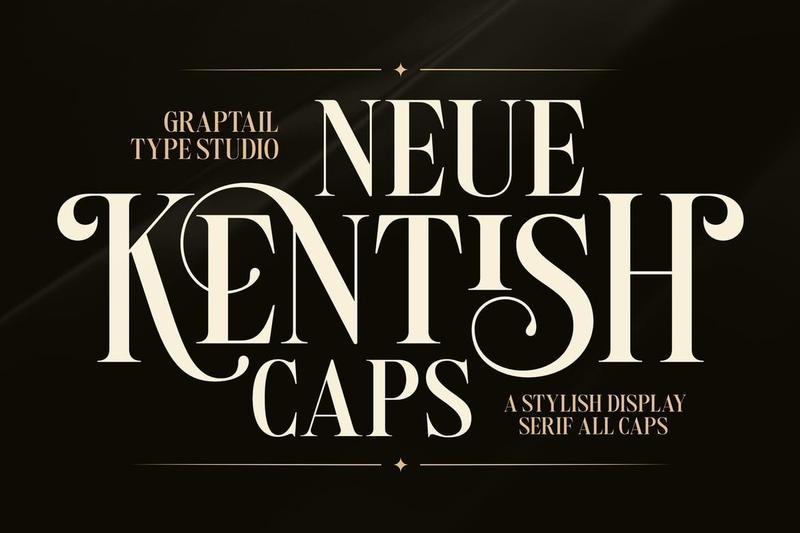
Neue Kentish Caps 762DRDW
Neue Kentish Caps is a refined display serif typeface that blends timeless sophistication with modern editorial elegance. Designed with graceful curves, distinctive ligatures, and carefully crafted letterforms, this typeface brings a luxurious presence to every design project.
Inspired by classic fashion magazines, luxury branding, and high-end editorial layouts, Neue Kentish Caps delivers a perfect balance between heritage aesthetics and contemporary style. Its elegant proportions and refined details make it ideal for designers seeking a premium, memorable typographic voice.
Whether you’re creating luxury logos, fashion campaigns, magazine headlines, packaging, or sophisticated social media content, Neue Kentish Caps helps transform ordinary typography into a statement of elegance.